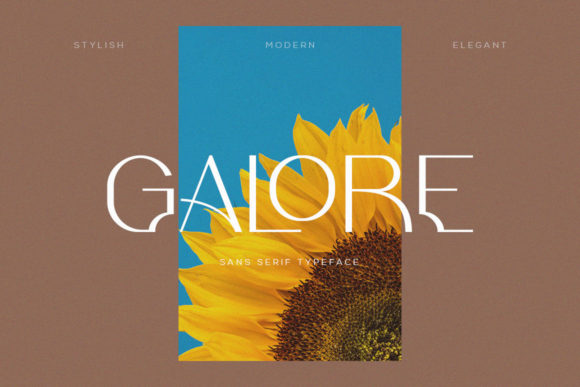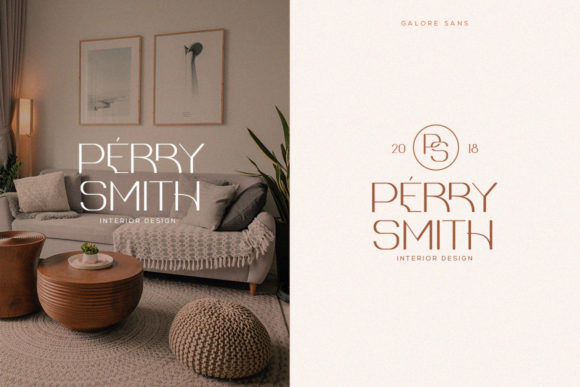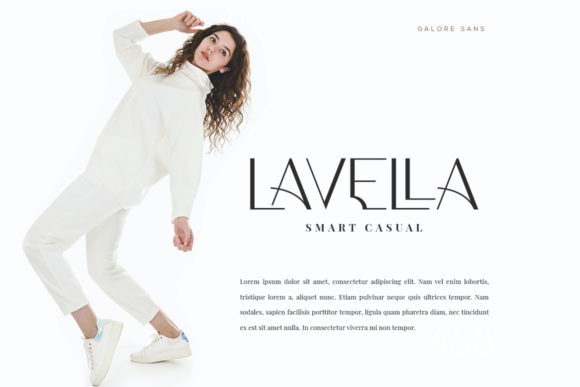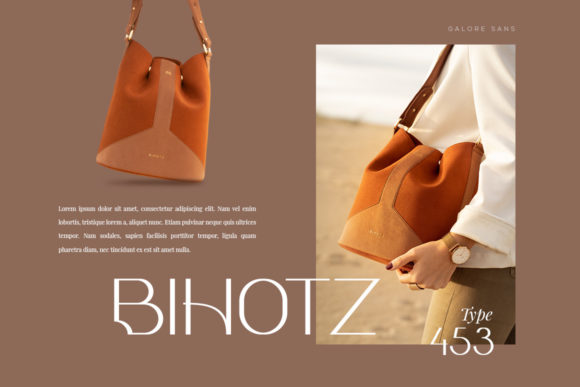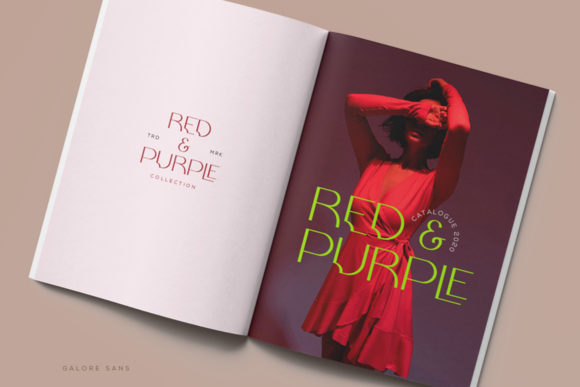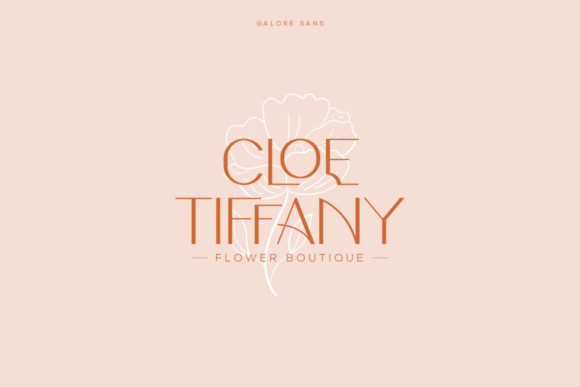
Introducing Galore Font: Elevate Your Designs with Elegance and Sophistication
In the world of typography, fonts play a crucial role in conveying the tone and aesthetic of a design. For designers and crafters seeking to add a touch of elegance and romance to their projects, the Galore Font is an excellent choice. This modern sans serif font boasts a thin, lettered design that exudes sophistication and refinement.
What Makes Galore Font Stand Out?
Galore is an elegant, thin lettered and modern sans serif font that has been carefully crafted to bring a sense of luxury and poise to any design. Its gentle curves and sleek lines make it an ideal choice for a wide range of projects, from wedding invitations and branding materials to digital content and packaging design.
One of the key features that sets Galore apart from other fonts is its unique blend of modernity and classic charm. The font’s thin lettering gives it a delicate, airy feel that is both visually striking and highly legible. This makes it perfect for designers who want to create a sense of drama and elegance in their work.
How to Use Galore Font in Your Designs
Galore is an incredibly versatile font that can be used in a variety of design contexts. Here are a few ideas to get you started:
- Wedding Invitations: Add a touch of romance and sophistication to your wedding invitations with Galore. The font’s elegant design makes it perfect for formal wedding stationery, and its legibility ensures that your guests will be able to easily read the details.
- Branding and Packaging: Use Galore to create a luxurious brand identity that sets your business apart from the competition. The font’s modern sans serif design makes it ideal for high-end brands, and its versatility ensures that it can be used across a range of marketing materials.
- Digital Content: Galore is also well-suited to digital content, including blog posts, social media graphics, and email newsletters. Its clean design and high legibility make it easy to read on a variety of devices.
Benefits of Using Galore Font
So why choose Galore Font for your design projects? Here are just a few benefits of using this elegant font:
- Elegance: Galore adds a touch of elegance and sophistication to any design, making it perfect for high-end brands and special occasions.
- Legibility: The font’s clean design and high legibility ensure that your message will be easily understood by your audience.
- Versatility: Galore can be used in a wide range of design contexts, from print materials to digital content.
- Romantic Touch: The font’s gentle curves and sleek lines give it a romantic feel that’s perfect for wedding invitations, anniversary cards, and other special occasions.
Tips for Pairing Galore Font with Other Fonts
While Galore is a stunning font in its own right, it can also be paired with other fonts to create a unique and visually striking design. Here are a few tips for pairing Galore with other fonts:
- Contrast with Bold Fonts: Pair Galore with a bold, sans serif font to create a striking contrast that adds visual interest to your design.
- Combine with Script Fonts: Galore also pairs beautifully with script fonts, which can add a touch of elegance and sophistication to your design.
- Use with Serif Fonts: For a more traditional look, try pairing Galore with a serif font. This can create a nice balance of modernity and classic charm.
| Font Name | Galore Font |
| Author | MarioDsgn |
In conclusion, the Galore Font is a beautiful, elegant font that is perfect for designers and crafters seeking to add a touch of sophistication and romance to their projects. Its unique blend of modernity and classic charm makes it an excellent choice for a wide range of design contexts, from wedding invitations and branding materials to digital content and packaging design. With its high legibility, versatility, and elegant design, Galore is sure to become a go-to font in your design arsenal.